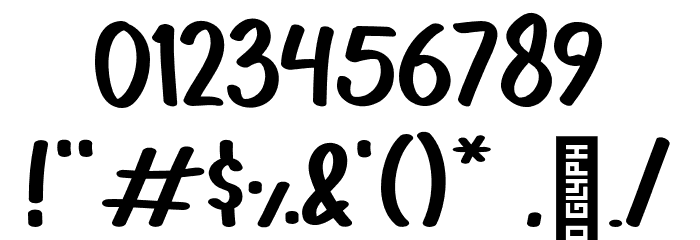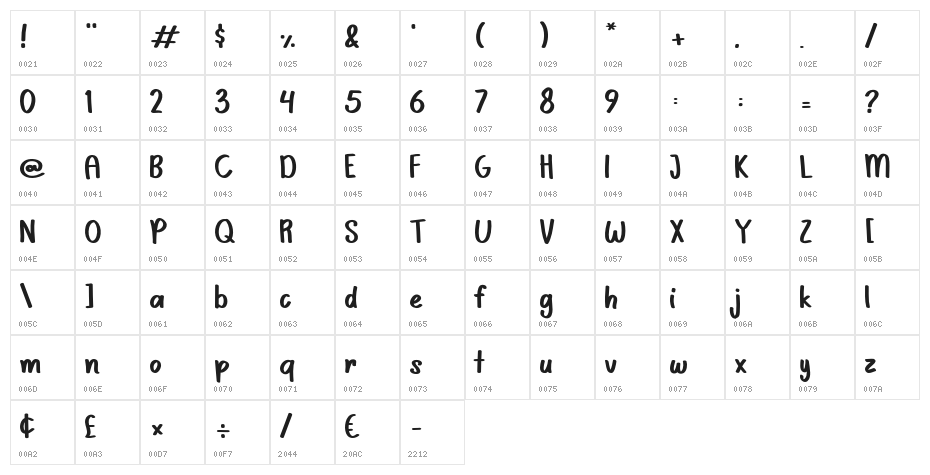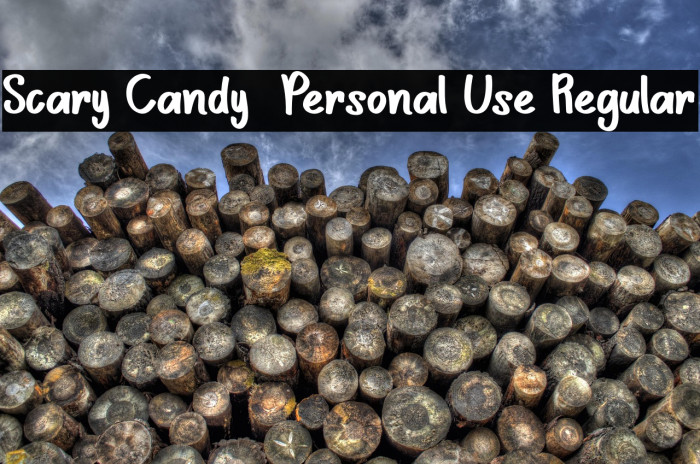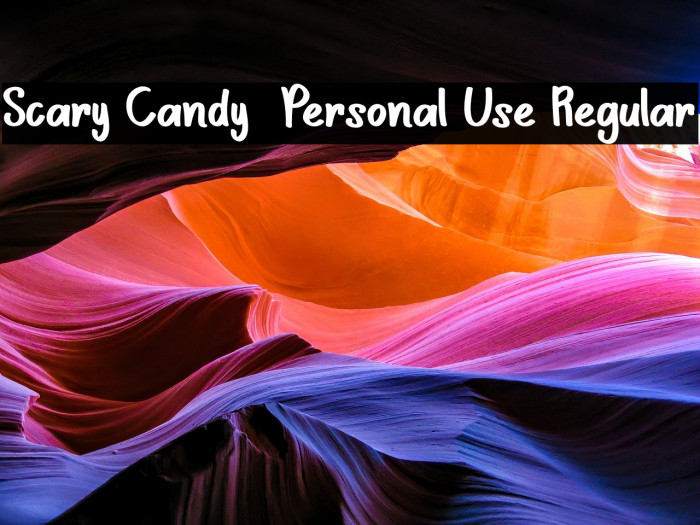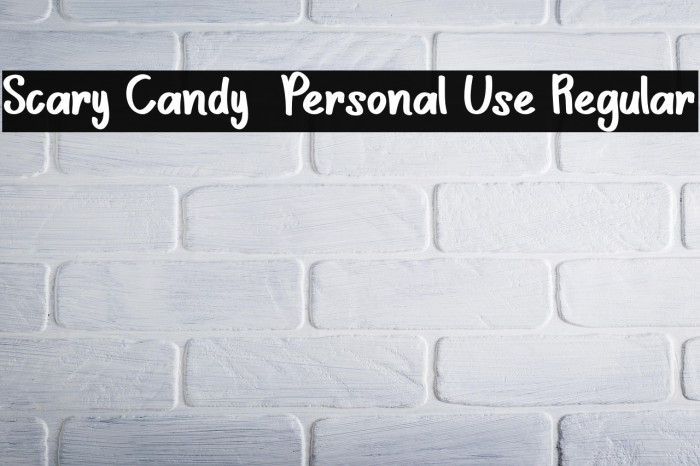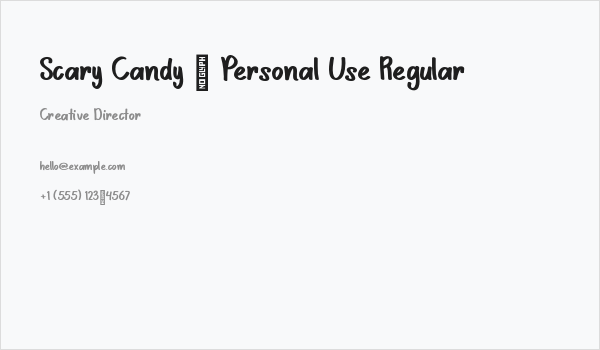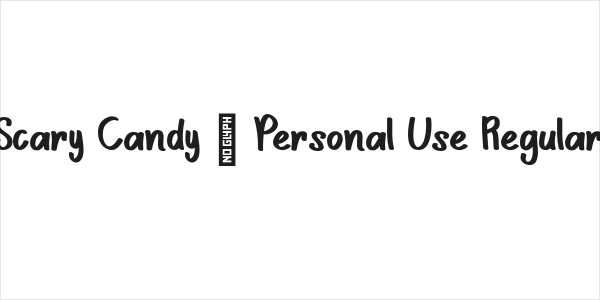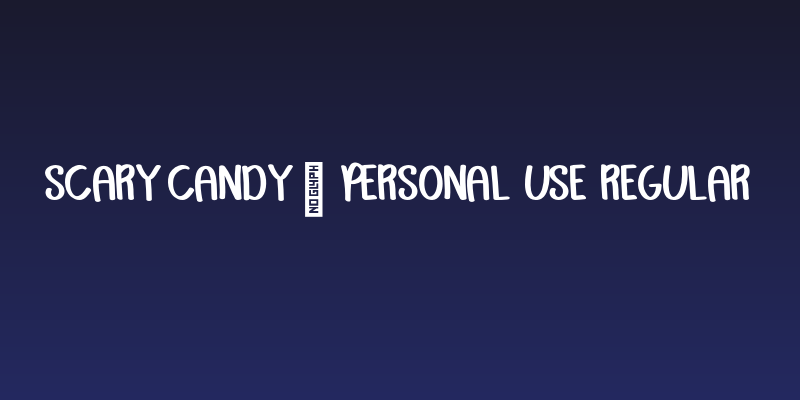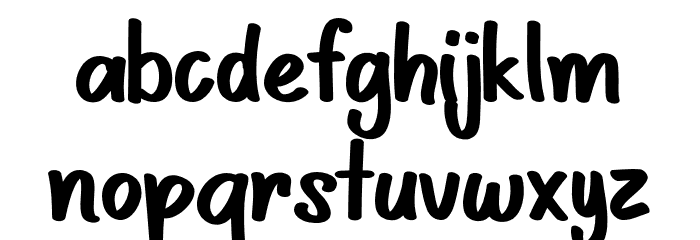
Scary Candy - Personal Use Regular Font
Scary Candy - Personal Use Regular Description
This playful and whimsical font features bold, rounded characters with a hand-drawn aesthetic. The letters have a consistent thickness, giving them a uniform appearance, while the slightly irregular shapes add a touch of charm and personality. The uppercase and lowercase letters are well-balanced, with a smooth flow that enhances readability. The numbers and special characters maintain the same playful style, making this font versatile for various creative projects. Its unique design is perfect for adding a fun and informal touch to any text.
| Proposed Projects | Ideal for children's books, party invitations, playful branding, and creative posters. |